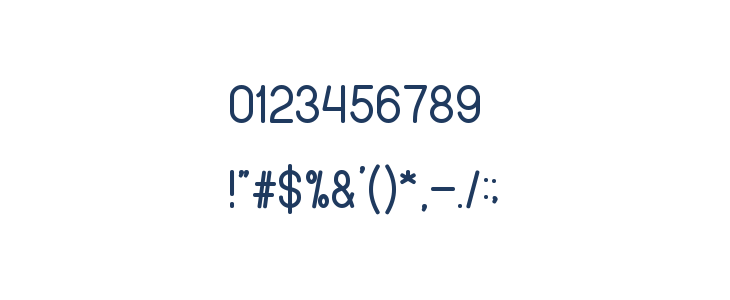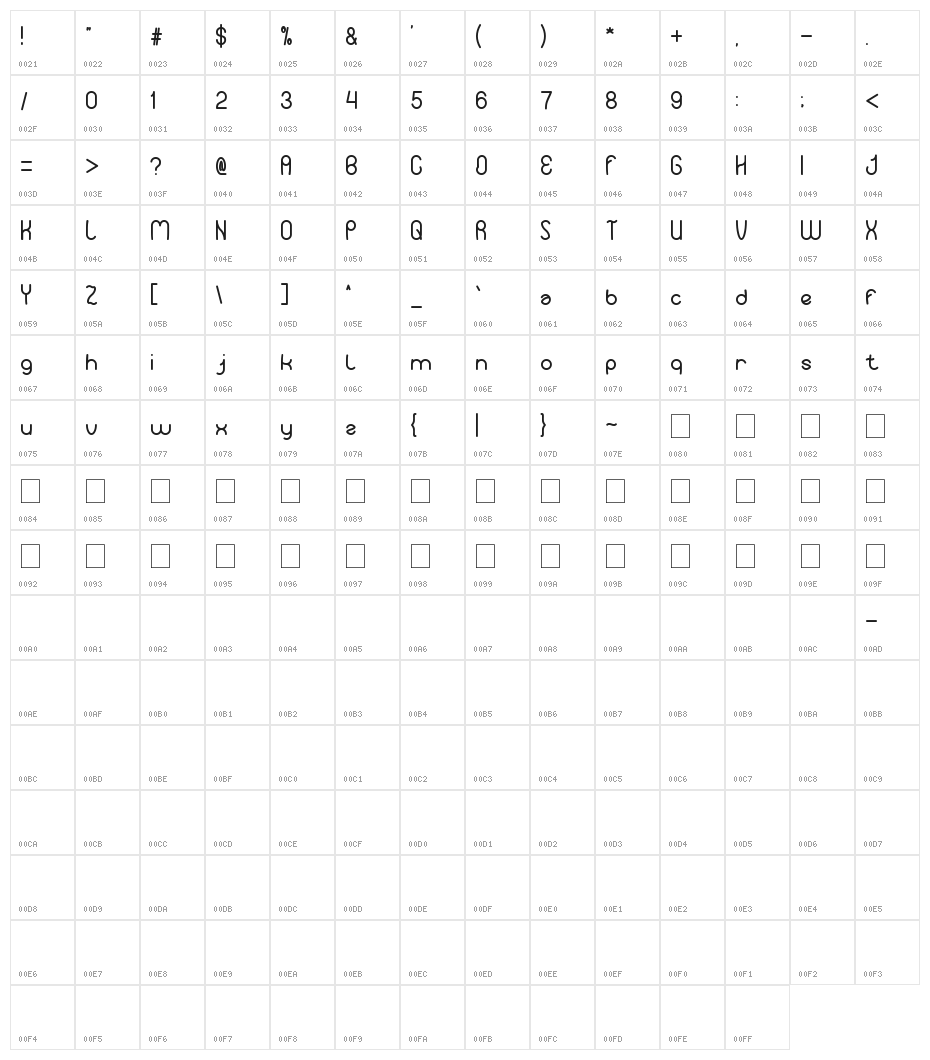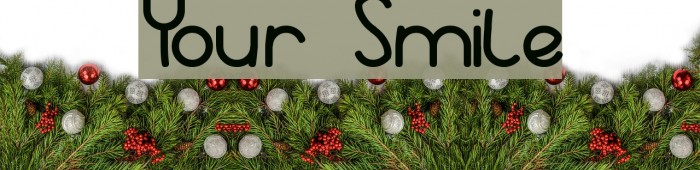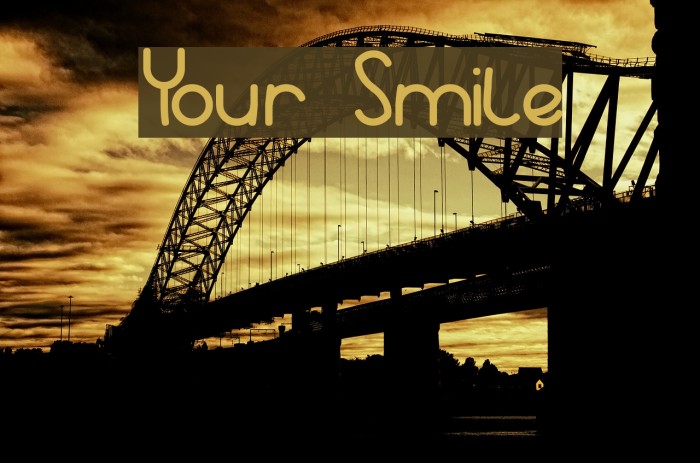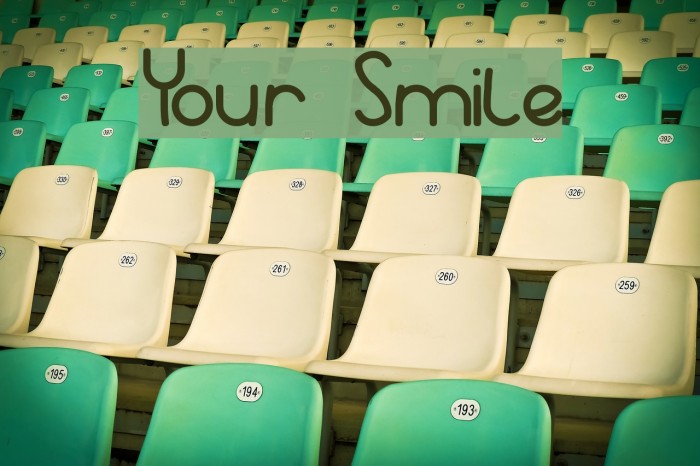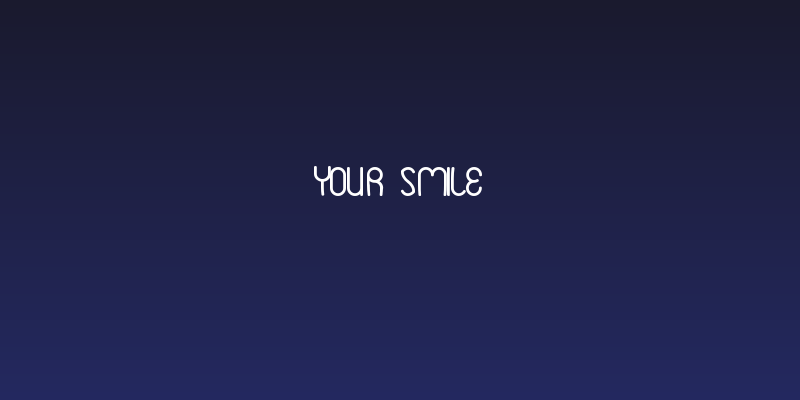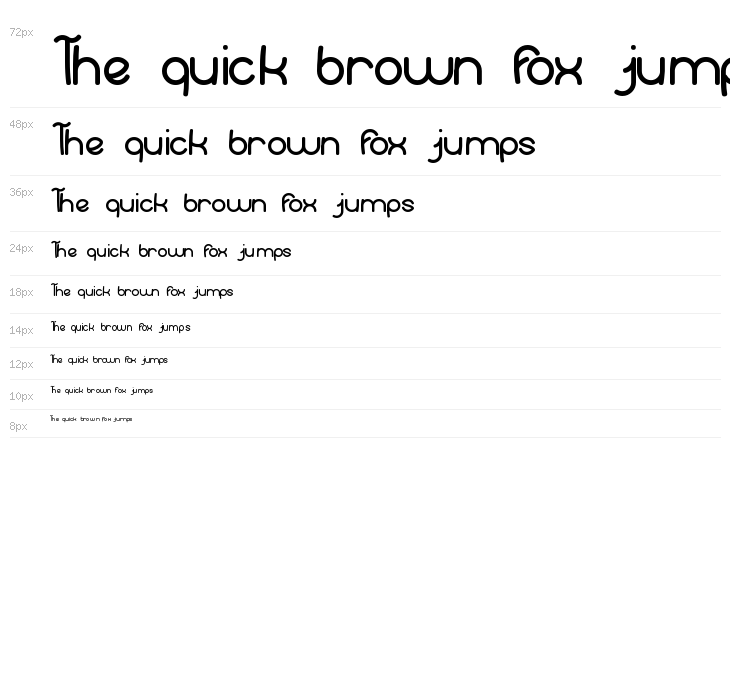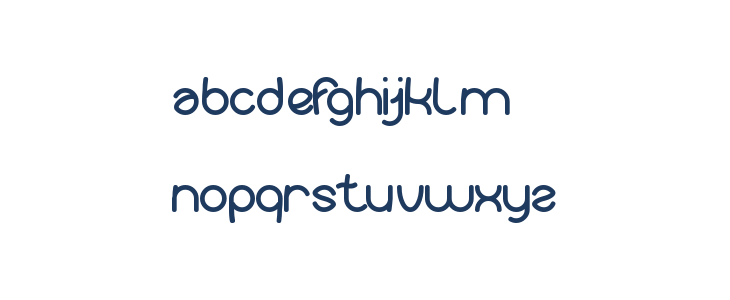
Your Smile Font
Your Smile Description
This playful and rounded font features a whimsical style with smooth curves and a friendly appearance. The characters are evenly spaced, providing a clean and approachable look. The uppercase and lowercase letters maintain a consistent design, with a slight variation in size that adds to the font's charm. The numerals are clear and easy to read, while the special characters blend seamlessly with the overall style. This font is perfect for projects that require a touch of fun and creativity, making it ideal for children's books, playful branding, or casual invitations.
Overall StylePlayful
Use CaseHeadlines, Logos, Invitations
Proposed ProjectsChildren's books, playful branding, casual invitations, greeting cards.